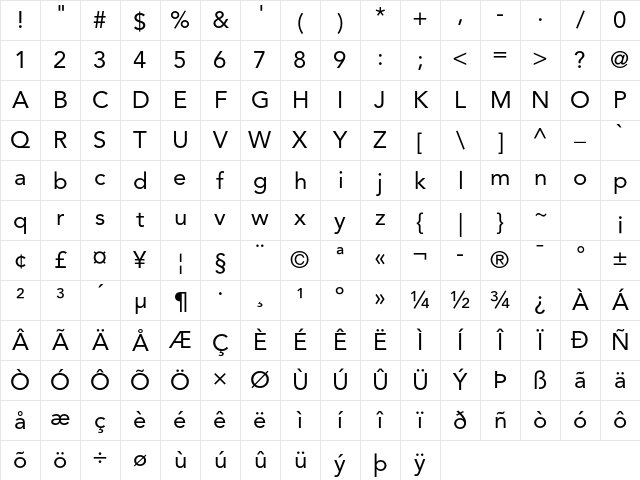
Avenir LT W04 55 is a composed and adaptable typeface that performs quietly and consistently across a wide range of design contexts. Its slender proportions lend an understated elegance to any composition.
Pro Tip: Use Avenir LT W04 55 in both headline and body roles to test its range before committing to a single application.